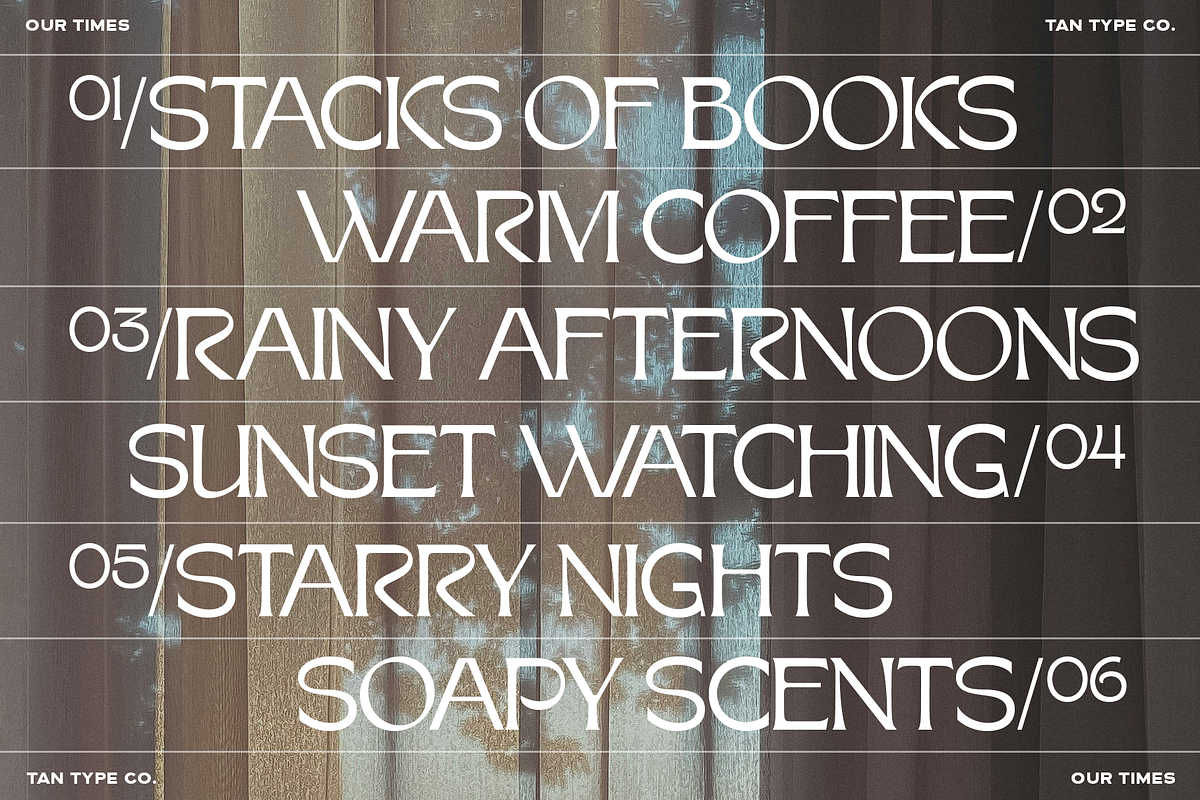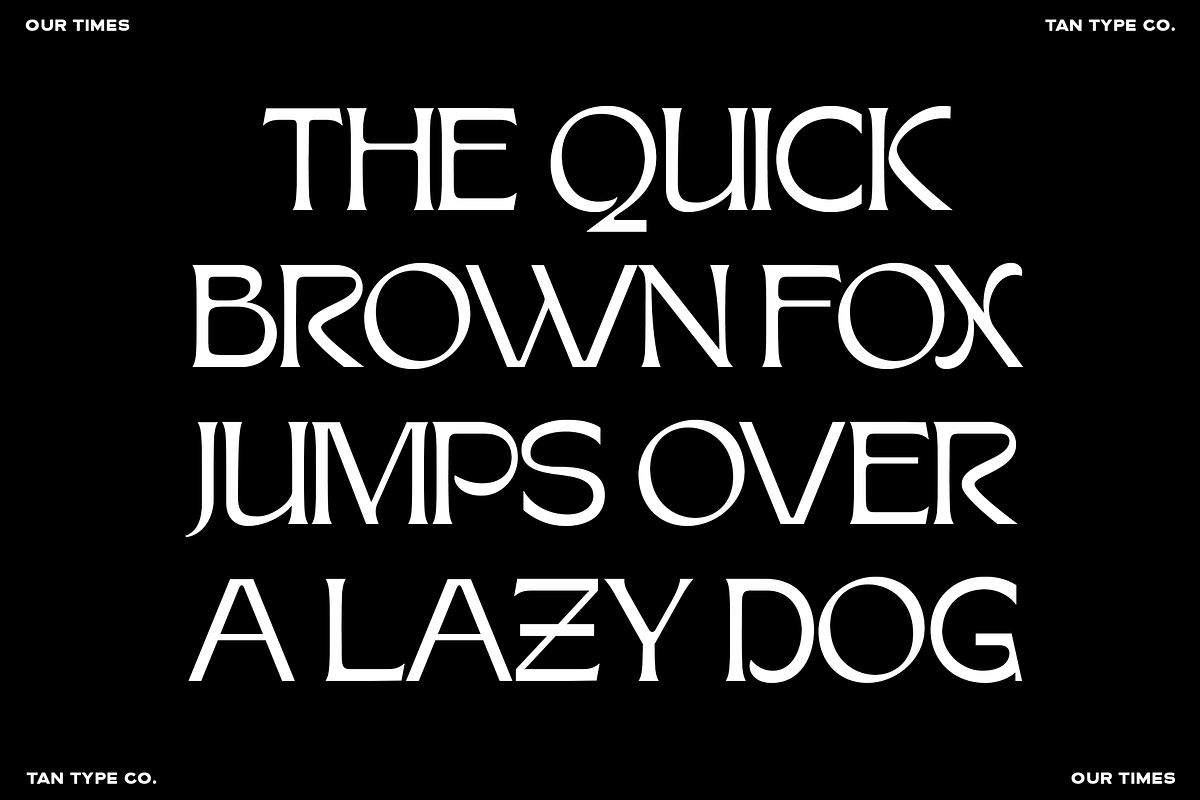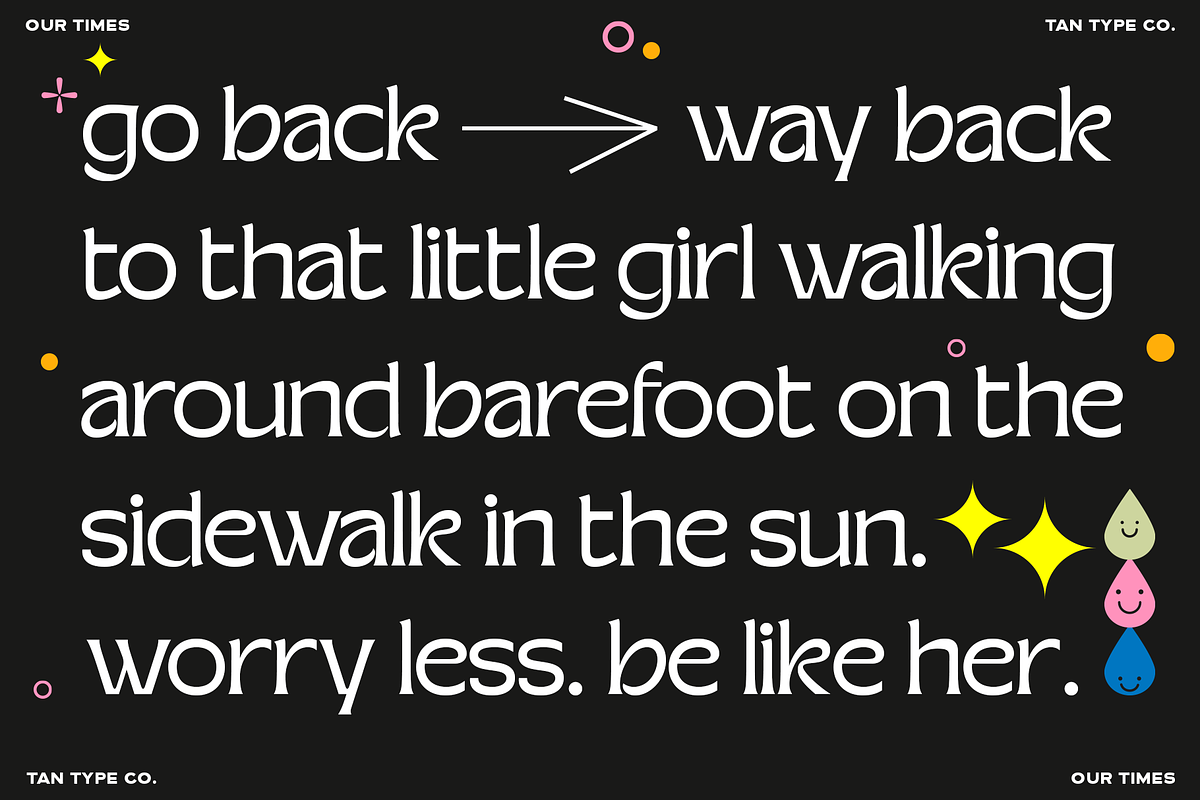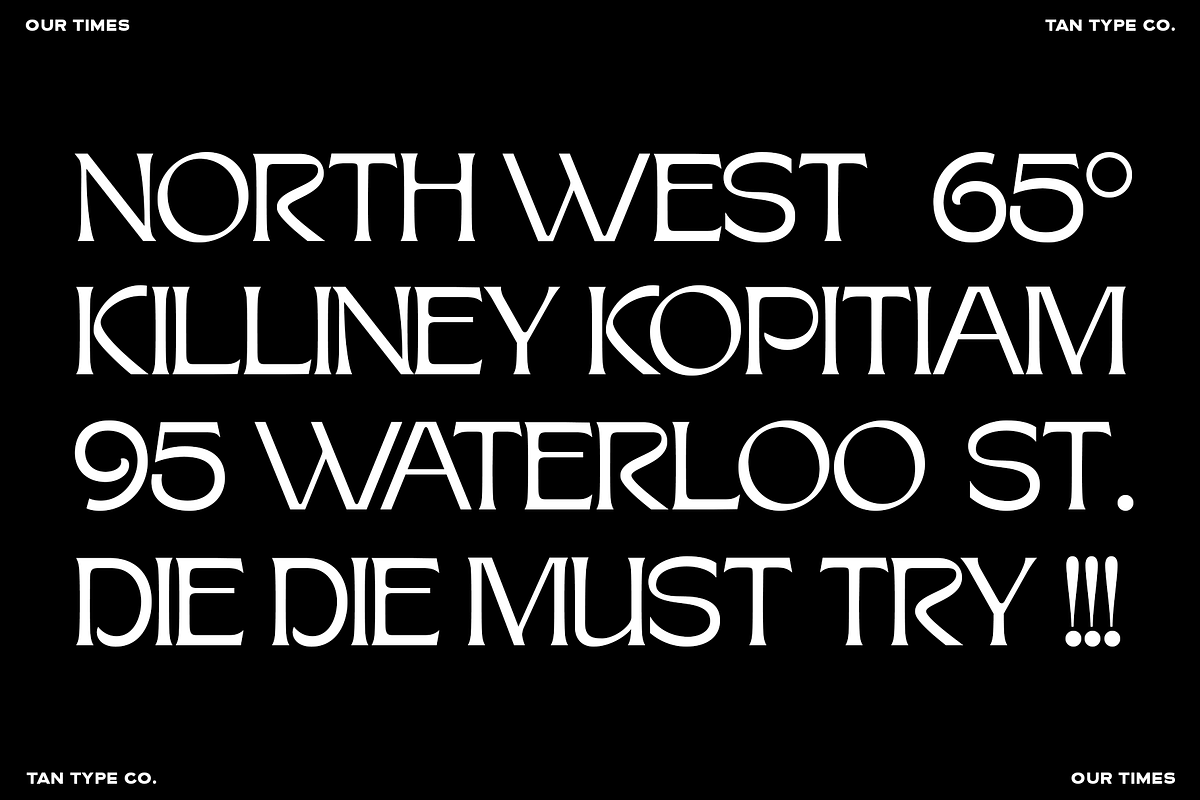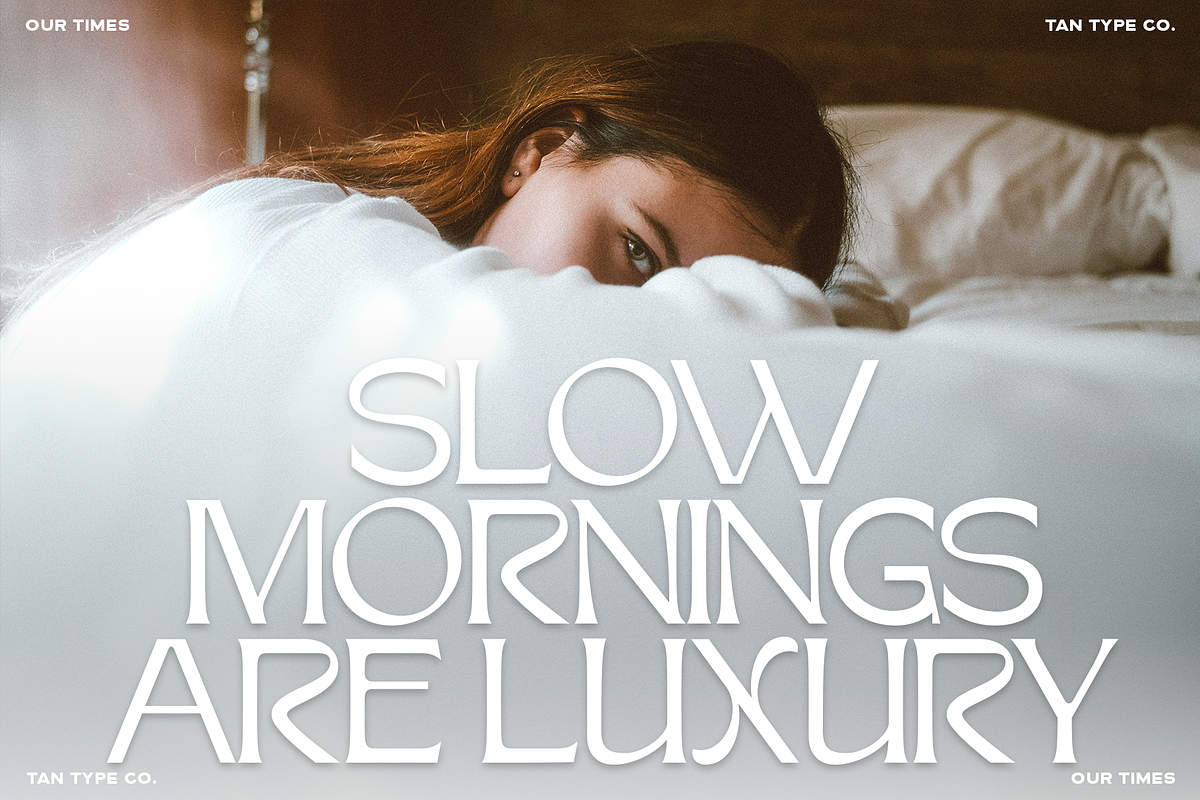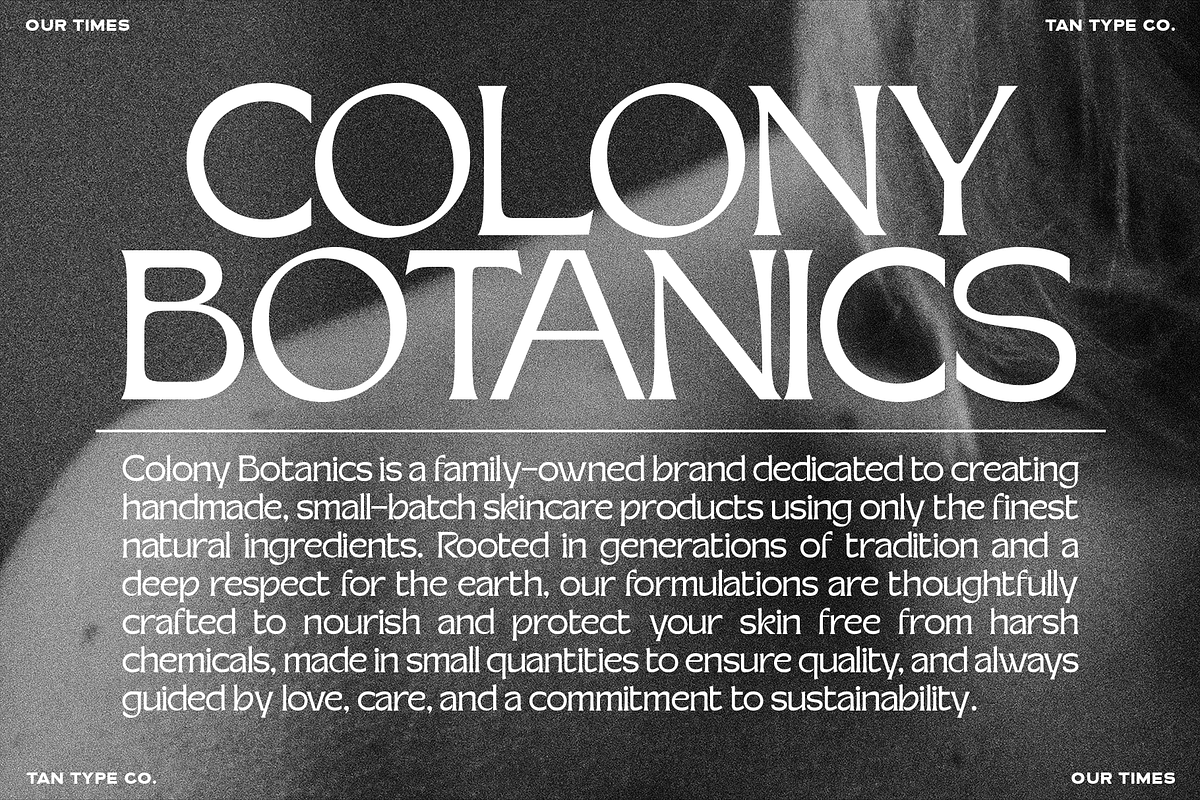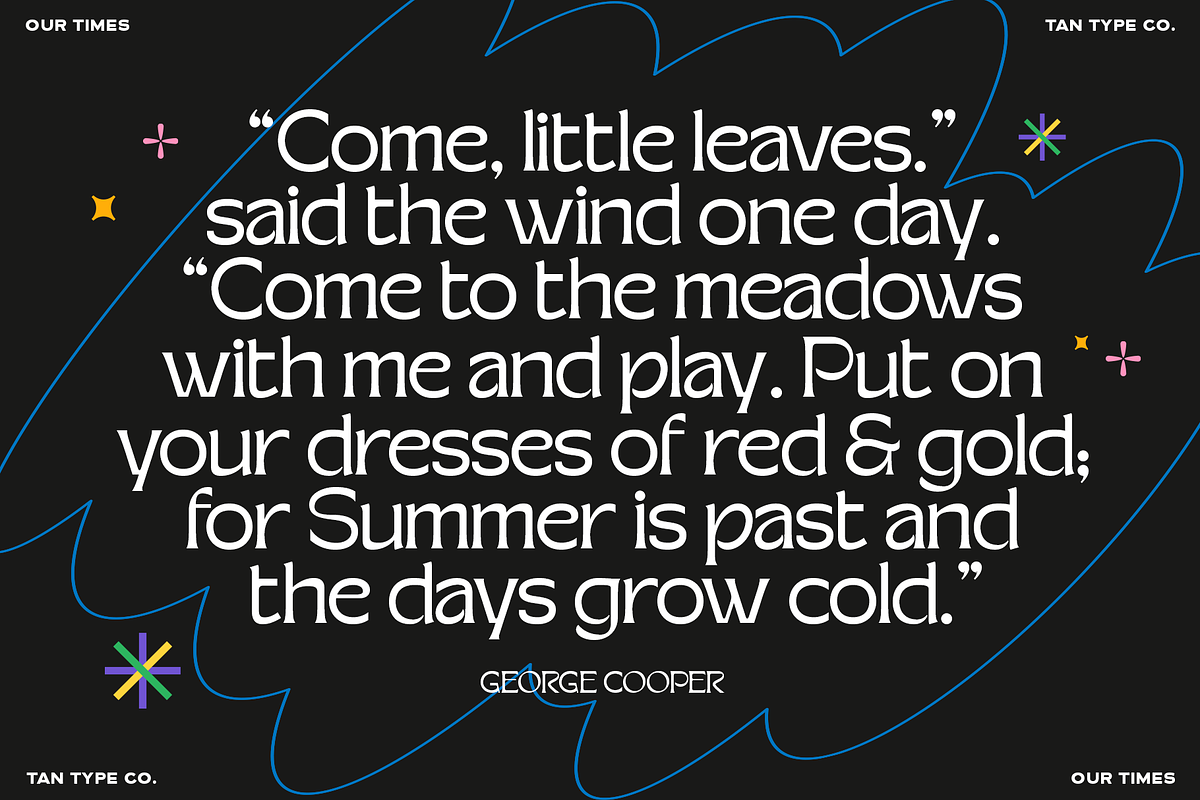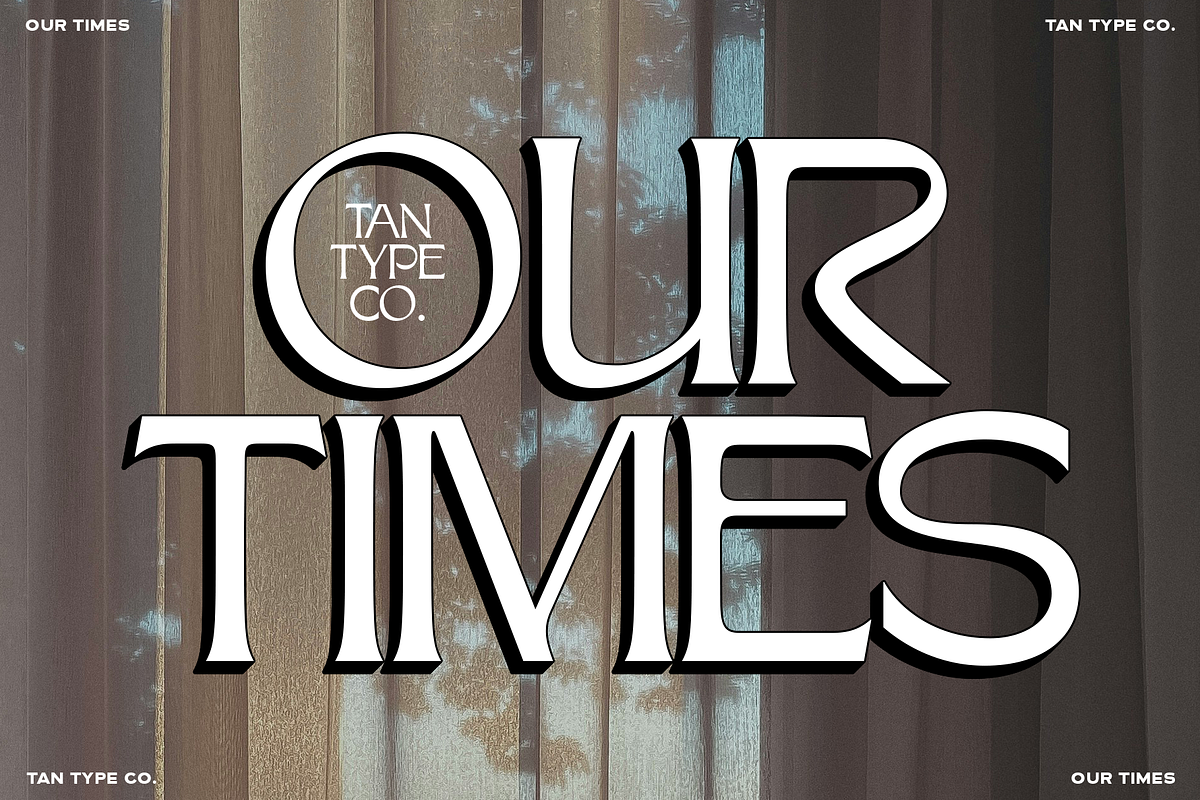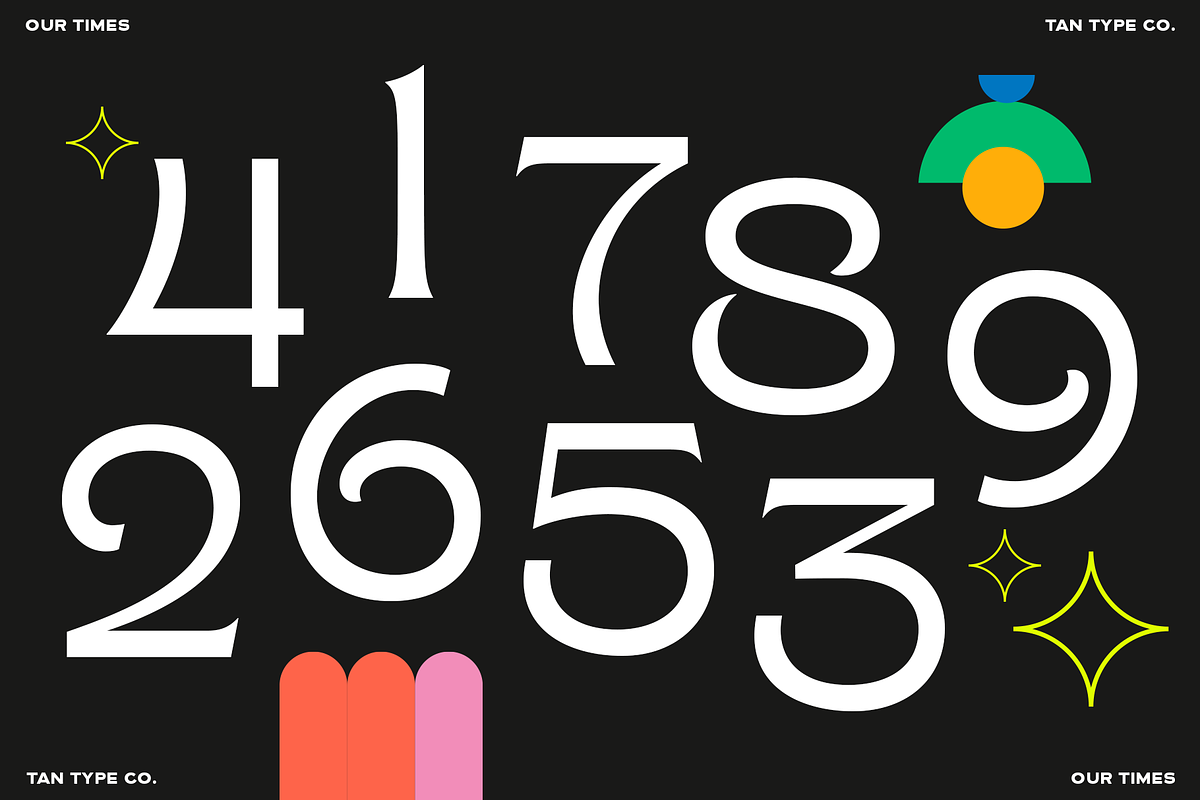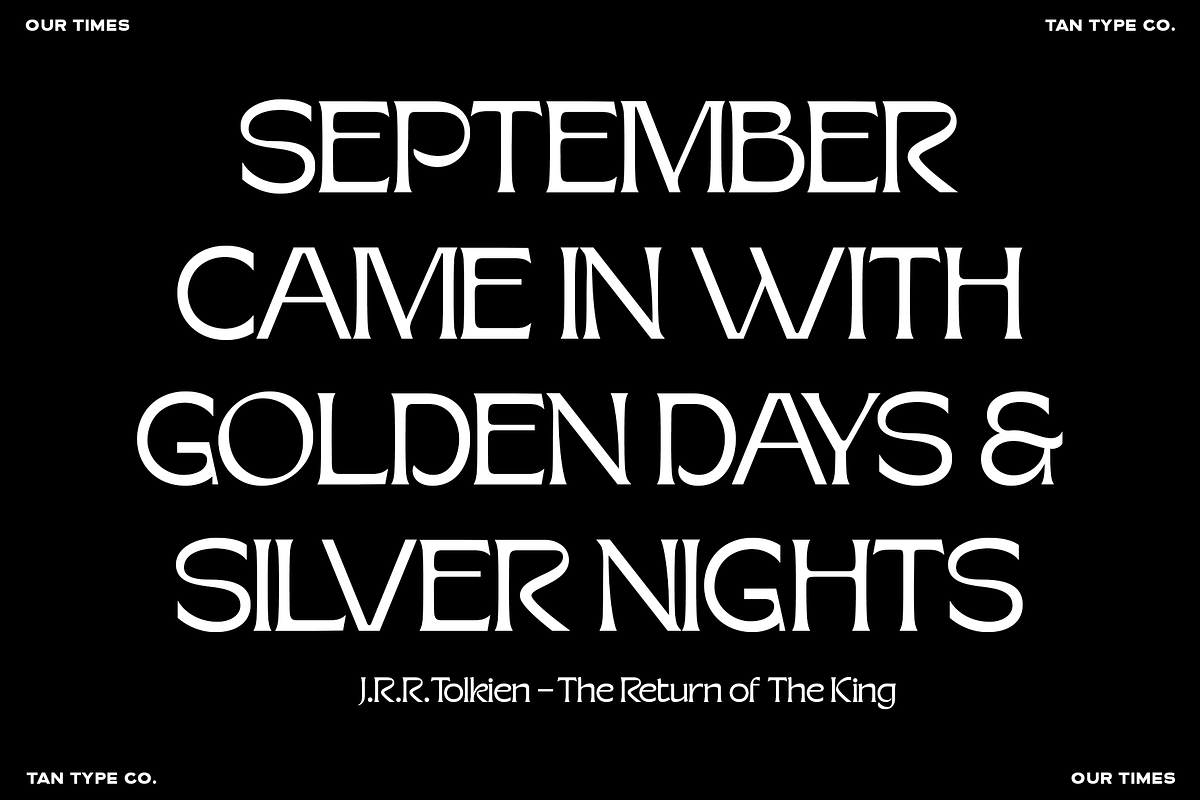
TAN - OUR TIMES
Introducing TAN - OUR TIMES, a nostalgic serif display font that captures the timeless elegance of vintage typography while embracing a fresh, modern twist. Perfect for branding, editorial design, logos, packaging, and more, this font is designed to make your projects feel both familiar and new. Rooted in classic letterforms with smooth curves and subtle quirks, OUR TIMES blends tradition with contemporary sensibilities. Its dynamic personality delivers a laid-back yet refined aesthetic, ideal for creatives who seek a balance between retro charm and modern minimalism. Whether you're crafting a nostalgic magazine spread, designing an elegant logo, or creating mood-driven social media graphics, OUR TIMES sets the tone with effortless sophistication and a chill, timeless vibe.